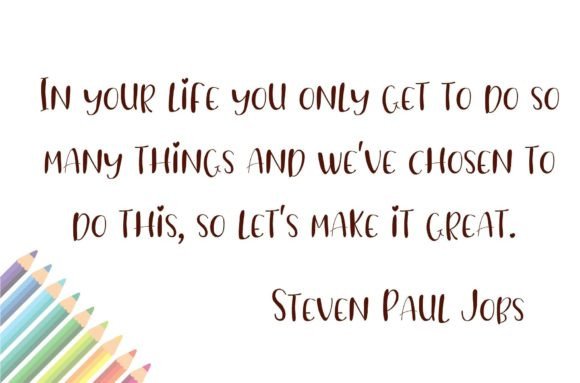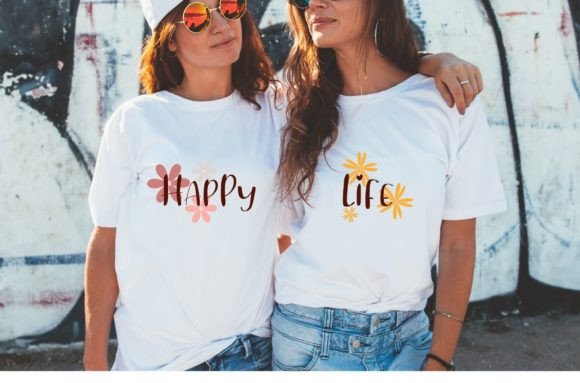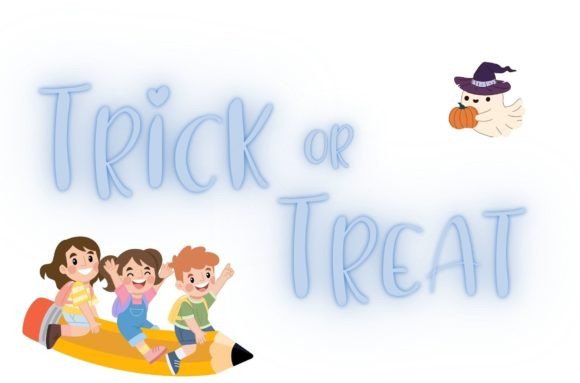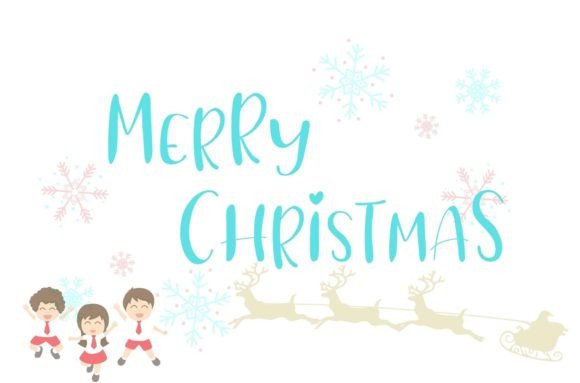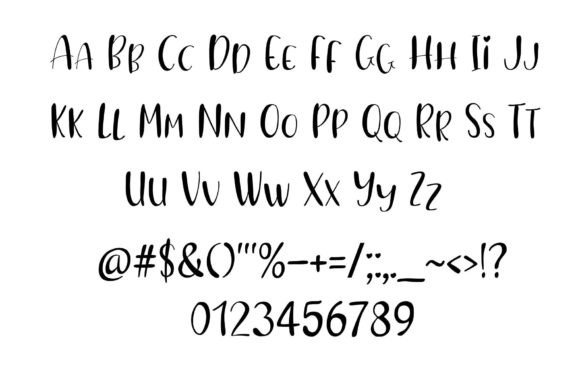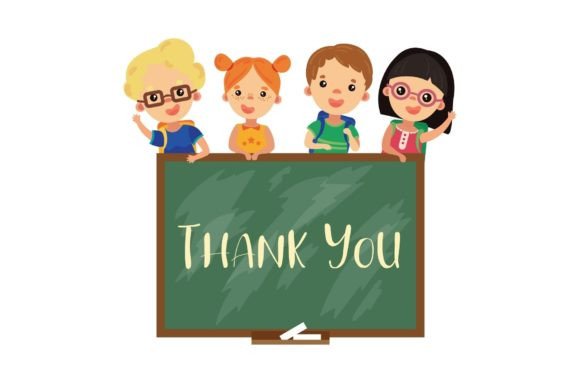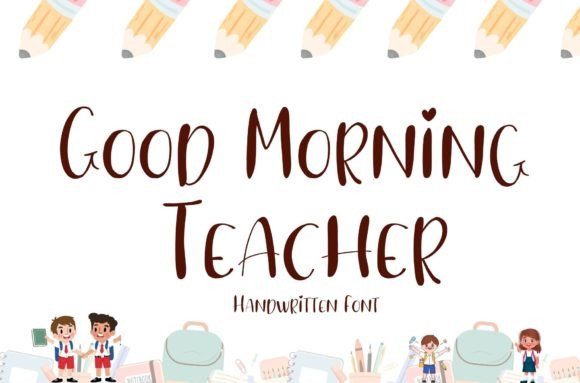
Introducing Good Morning Teacher Font: A Handwritten Delight for Creative Projects
Are you a designer, crafter, or DIY enthusiast looking for a unique and playful font to elevate your creative projects? Look no further than the Good Morning Teacher Font, a charming handwritten font that’s perfect for a wide range of applications. In this article, we’ll explore the features and benefits of this versatile font, and show you how it can bring your designs to life.
What is Good Morning Teacher Font?
Good Morning Teacher Font is a beautifully crafted handwritten font that’s designed to add a personal touch to your designs. With its playful and whimsical feel, this font is ideal for projects that require a friendly and approachable tone. Whether you’re creating logos, branding materials, wedding invitations, business cards, or social media graphics, Good Morning Teacher Font is the perfect choice.
What Can I Use Good Morning Teacher Font For?
The possibilities are endless with Good Morning Teacher Font! This versatile font can be used for a wide range of creative projects, including:
• Logos and branding materials: Create a unique and memorable logo for your business or brand with Good Morning Teacher Font.
• Wedding invitations and stationery: Add a touch of elegance and whimsy to your wedding invitations and stationery with this beautiful font.
• Business cards and greeting cards: Stand out from the crowd with custom business cards and greeting cards that feature Good Morning Teacher Font.
• Posters and magazines: Use this font to create eye-catching posters and magazine layouts that grab attention.
• Social media graphics: Elevate your social media graphics with Good Morning Teacher Font and make your content more engaging.
• Planner prints and websites: Use this font to create custom planner prints and website content that’s both functional and visually appealing.
• Children’s designs: Good Morning Teacher Font is especially useful for children’s designs, such as kids’ party invitations, coloring books, and educational materials.
• T-shirts, mugs, and other merchandise: Create custom apparel and merchandise with Good Morning Teacher Font and make your designs stand out.
What Makes Good Morning Teacher Font Special?
Good Morning Teacher Font is more than just a font – it’s a design solution that can elevate your creative projects in many ways. Here are some of the key features that make this font special:
• Handwritten style: Good Morning Teacher Font has a unique handwritten style that’s both playful and elegant.
• Easy to read: Despite its playful feel, Good Morning Teacher Font is easy to read and understand, making it perfect for body text and headings.
• Experiment with different font sizes and styles: Good Morning Teacher Font comes in a range of font sizes and styles, so don’t be afraid to experiment and find the one that works best for your project.
• Pair with other fonts: Good Morning Teacher Font pairs well with other fonts, so try combining it with other fonts to create a unique and interesting effect.
• Use it for headings and body text: Good Morning Teacher Font is suitable for both headings and body text, making it a versatile font that can be used for a wide range of design projects.
Font Name Good Morning Teacher Font
Author PeamCreations
Good Morning Teacher Font is a beautiful and versatile handwritten font that’s perfect for designers, crafters, and DIY enthusiasts. With its playful and whimsical feel, this font is ideal for a wide range of creative projects, from logos and branding materials to wedding invitations and social media graphics. Whether you’re a seasoned designer or just starting out, Good Morning Teacher Font is a great addition to your font collection. So why wait? Download Good Morning Teacher Font today and start bringing your creative projects to life!